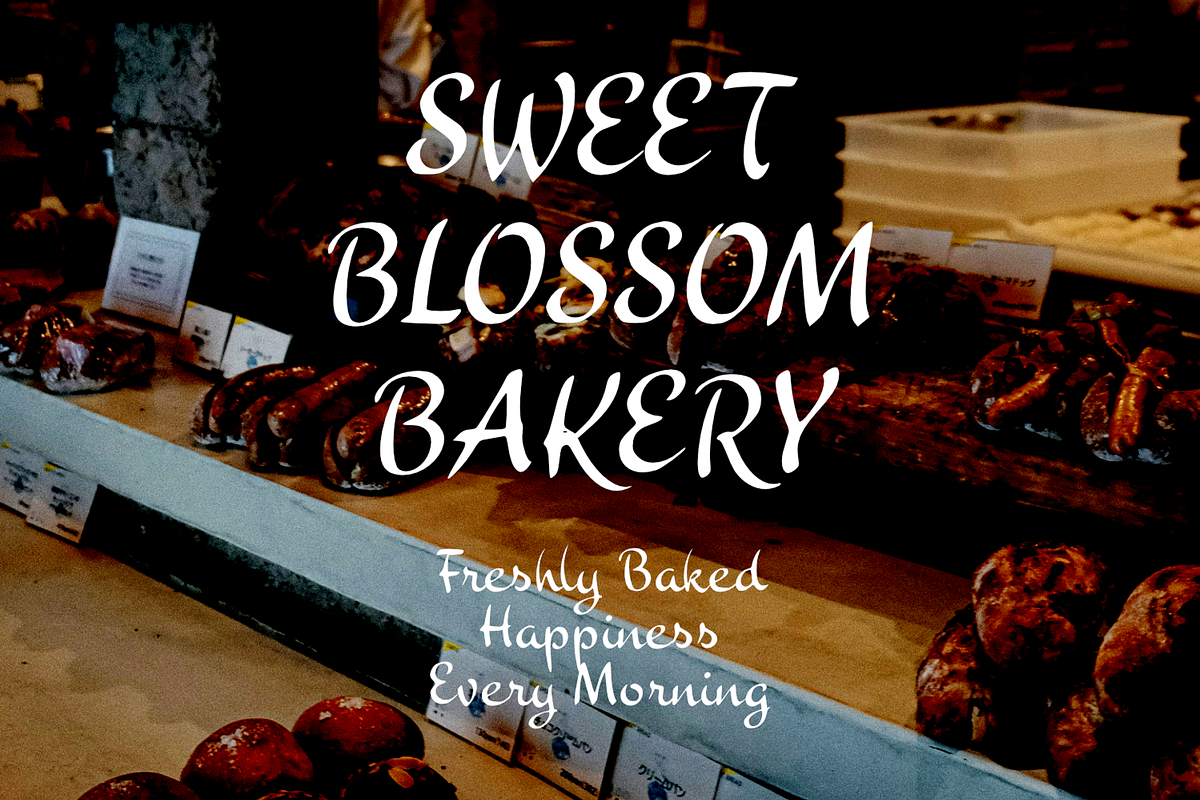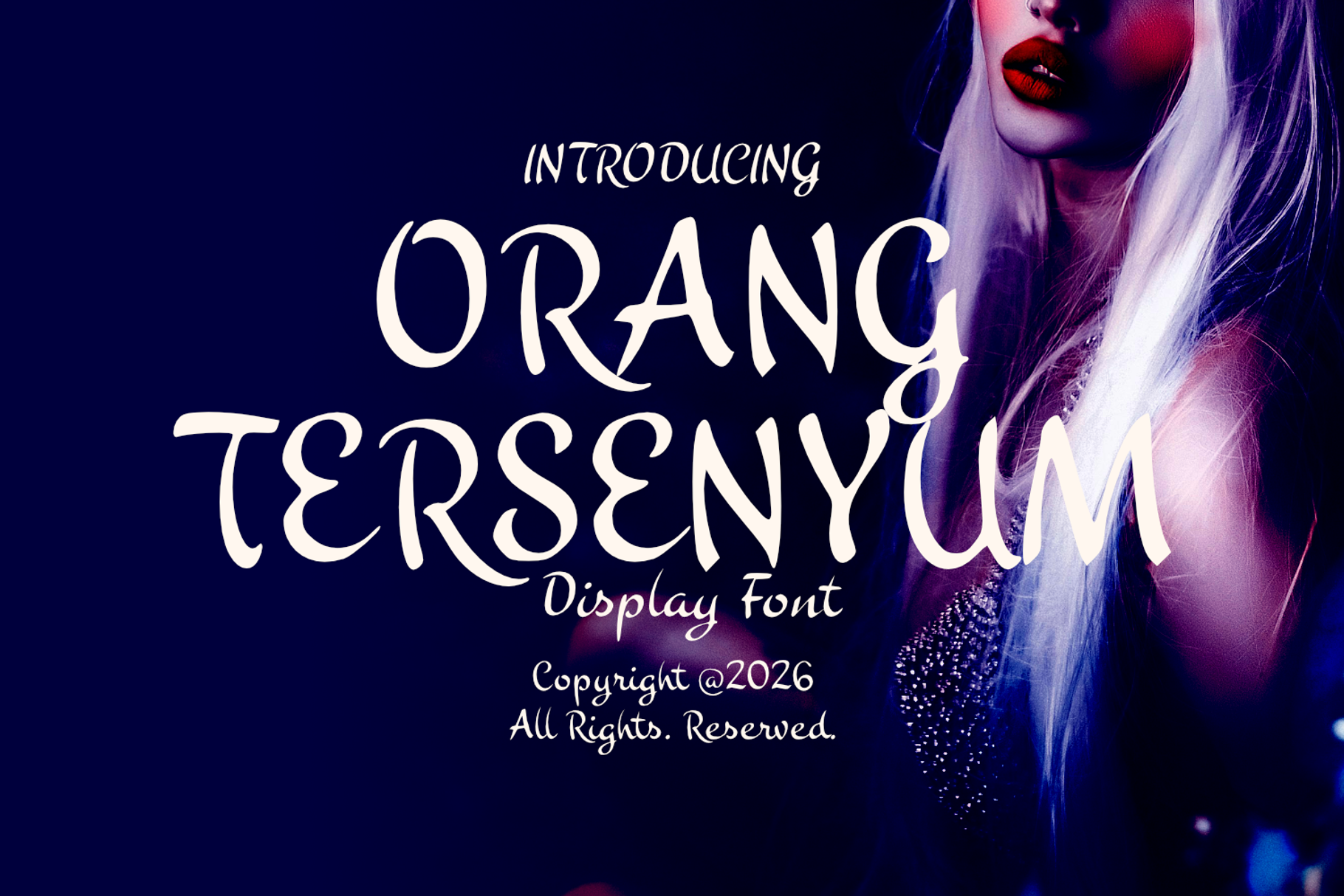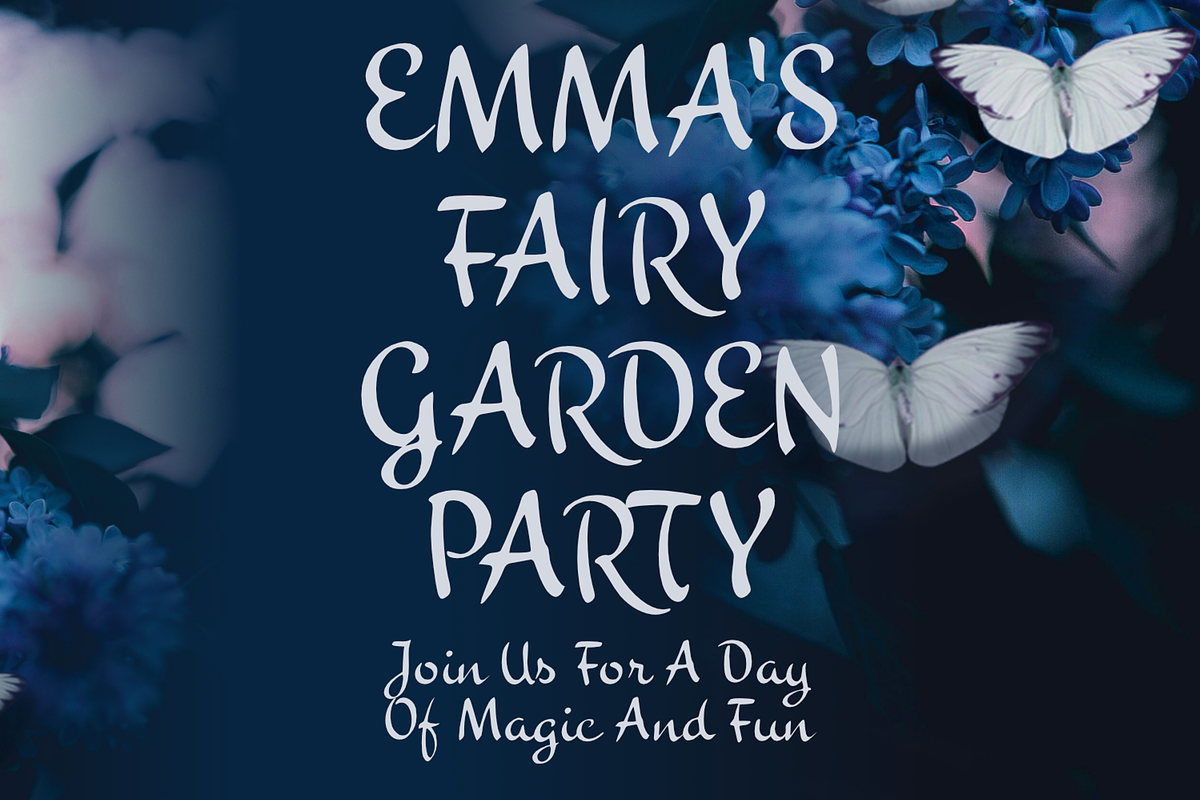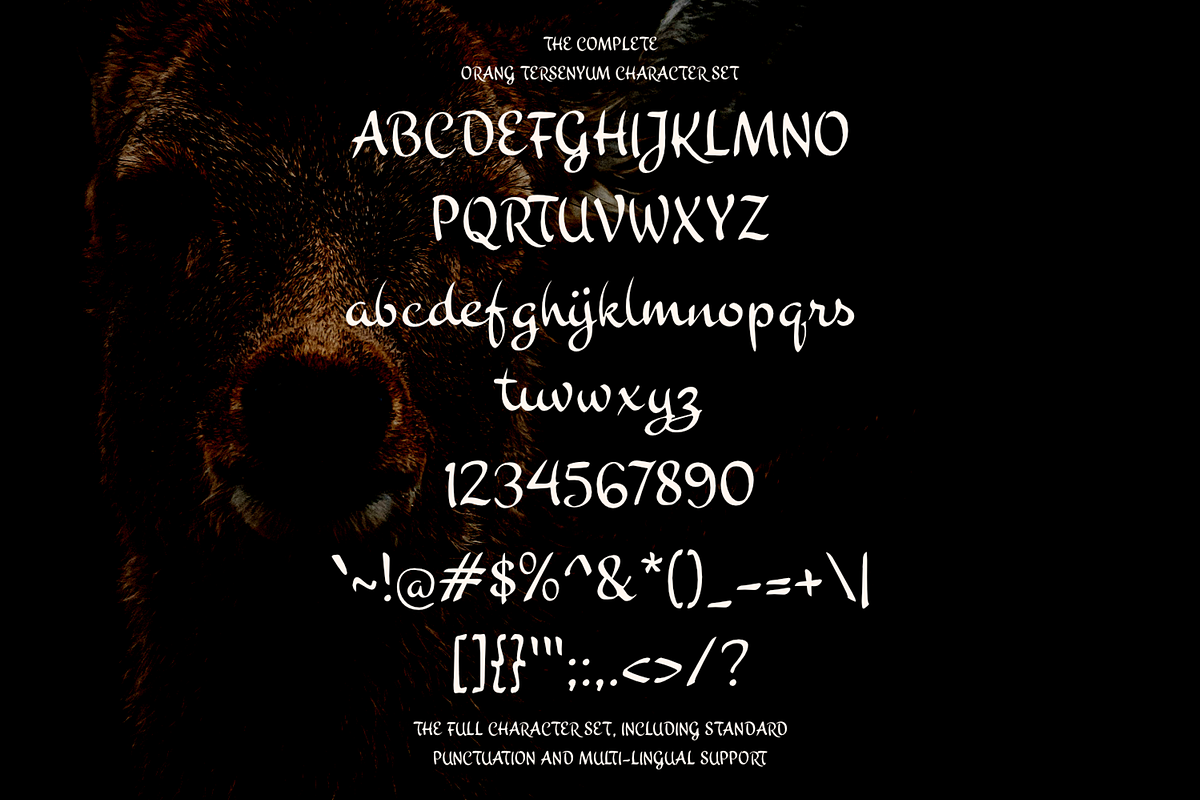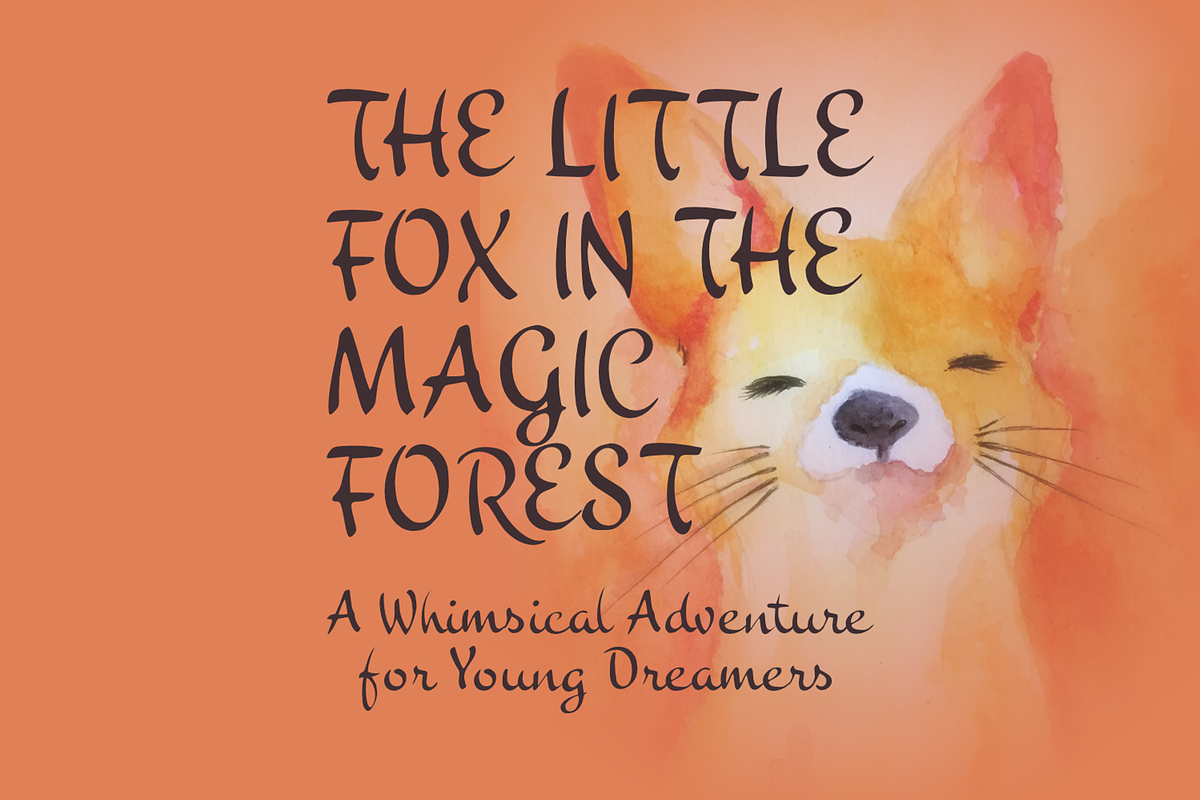
Orang Tersenyum Script Playful Font
Orang Tersenyum is a playful hand-drawn display font that brings warmth, creativity, and personality to every design. Featuring organic letterforms with a whimsical touch, this font is perfect for projects that need a cheerful and friendly feel. Whether you're designing children's books, playful branding, greeting cards, posters, packaging, social media graphics, or DIY crafts, Orang Tersenyum adds a unique handmade charm that instantly captures attention. Its expressive style makes it ideal for creating memorable headlines, logos, invitations, and creative typography with a fun, lighthearted character.